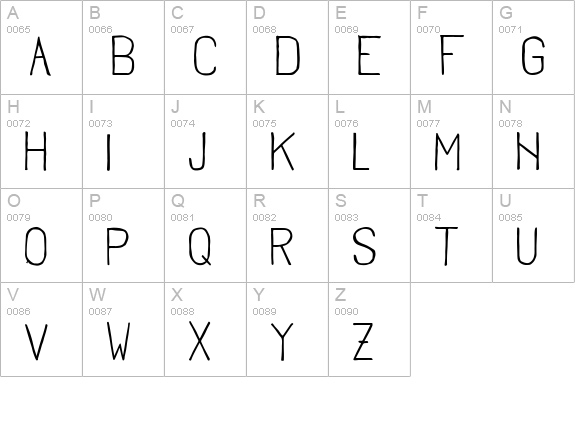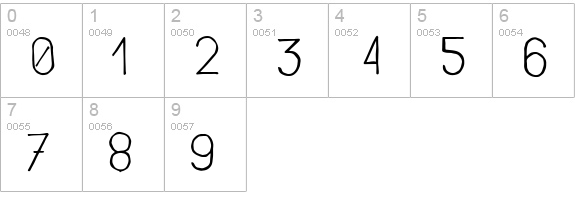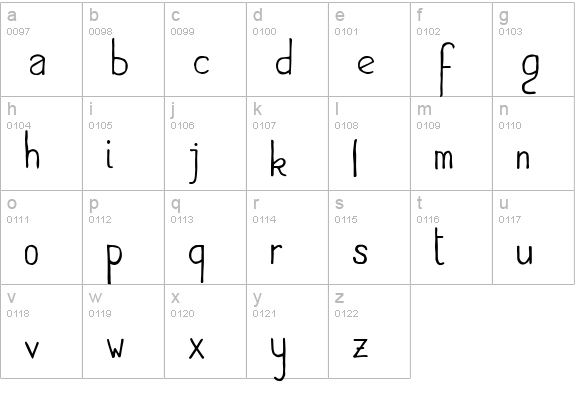
SkinnyNormal Regular Font Details
SkinnyNormal Regular is the standard, neutral variant in the SkinnyNormal typeface family \xE2\x80\x94 well suited to general body text, paragraphs, and standard typographic work.
SkinnyNormal Regular is a sleek and modern font that exudes a sense of sophistication and elegance. Its slim and streamlined design makes it perfect for a wide range of design projects, from branding and advertising to web design and social media graphics. With its clean lines and balanced proportions, SkinnyNormal Regular is versatile and easy to read, making it ideal for both headlines and body text. Best of all, SkinnyNormal Regular is available for free download at FontsMarket.com. Whether you're a graphic designer looking to add a fresh new font to your collection or a small business owner in need of a stylish typeface for your marketing materials, SkinnyNormal Regular is the perfect choice. Download it today and elevate your designs with this stunning and versatile font.